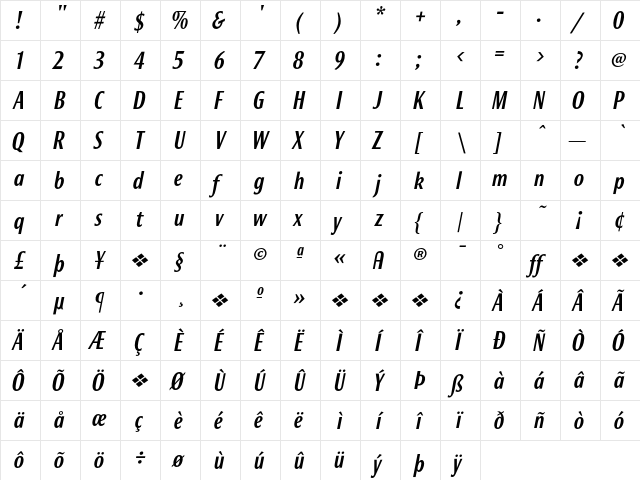
Bureau RoxyMediumItalic
Design Context for Bureau Typeface
Bureau is a composed and adaptable typeface that performs quietly and consistently across a wide range of design contexts. The dynamic lean of this cut emphasises speed and emphasis in any layout.
Pro Tip: Try Bureau for annotation and caption copy alongside an upright companion — the contrast in angle creates a dynamic but ordered typographic system.